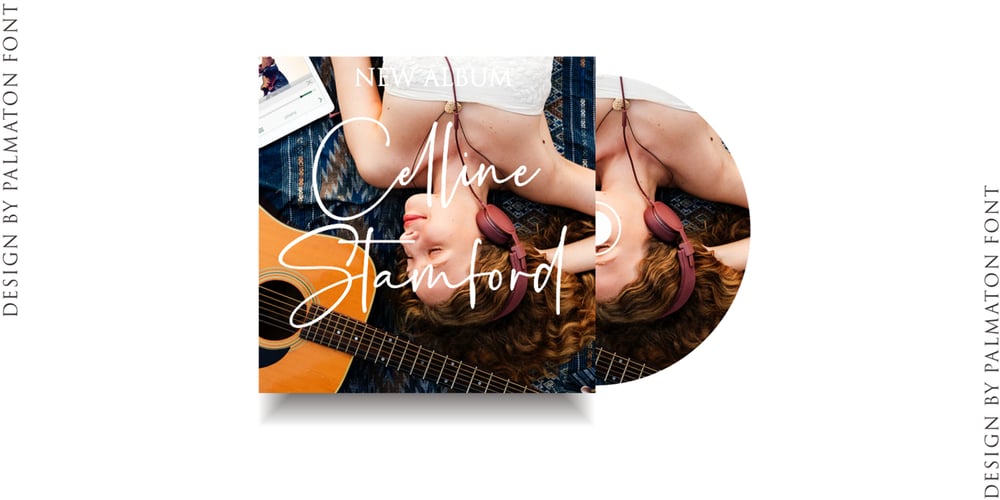
Palmaton Font Family was designed by Muhammad Fikry and published by Fikryal. Palmaton contains 1 styles and family package options. Palmaton is a new modern & stylish handwritten font. It’s perfect for logo, branding, invitation, tittle, wedding designs, social media posts, advertisements, product packaging, product designs, label, photography, watermark, special events, magazine, web design, etc. What’s Included : Ligature Multilingual support If you have any questions please don’t hesitate to contact me at : mfikryalif@fmail.com